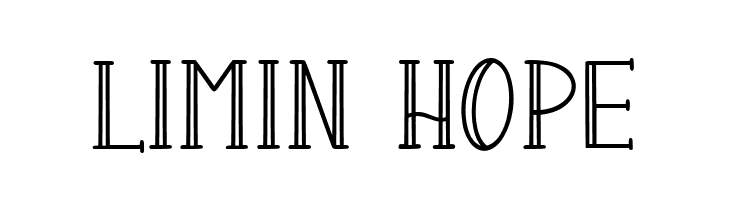
A classic, condensed serif font with elegant and sophisticated styling.
A bold, hand-drawn font with a playful, textured design.
A lively and energetic script font with fluid strokes and a hand-drawn aesthetic.
A playful, handwritten-style font with a whimsical and casual appearance.
A geometric, angular font with a futuristic, tech-inspired design.
A decorative font with tall, slender characters and a geometric, vintage-modern style.
A bold, distressed font with a rugged, vintage look.
A modern, geometric font with clean lines and a futuristic feel.
A playful, bold script font with a handwritten style.
A bold, playful font with a hand-drawn, casual style.